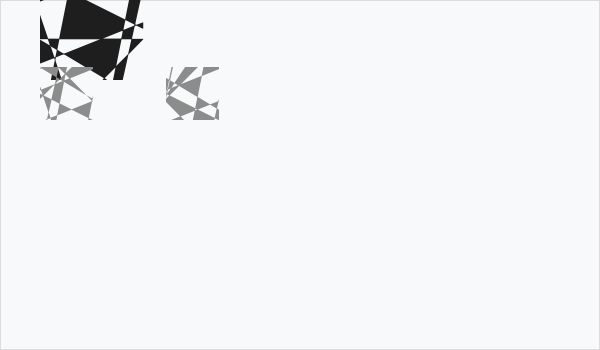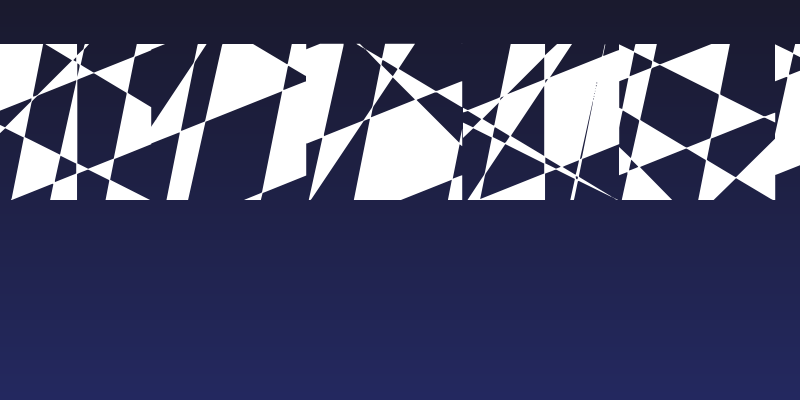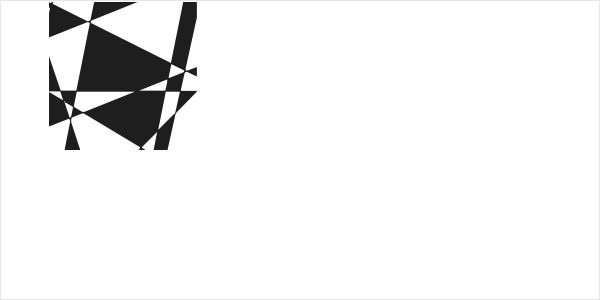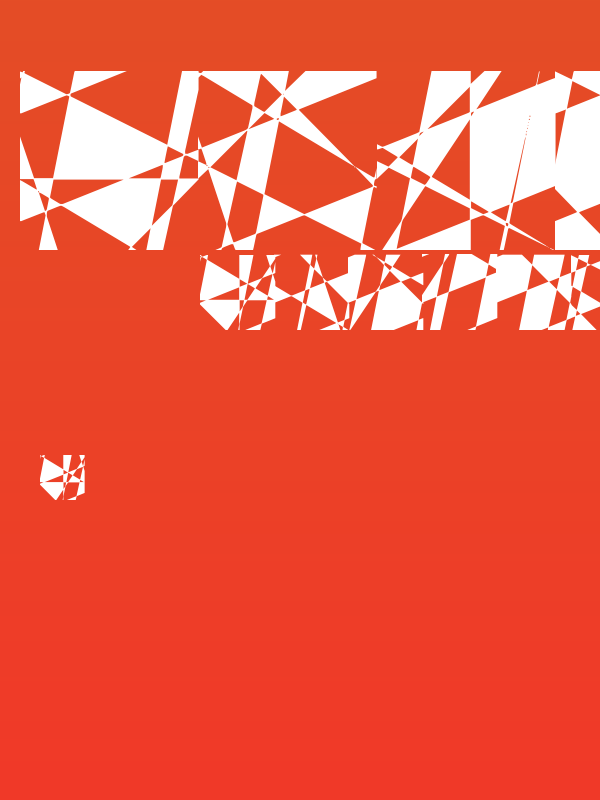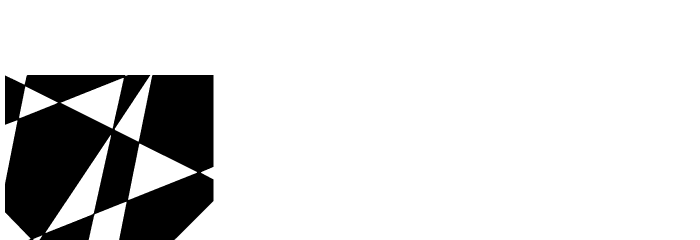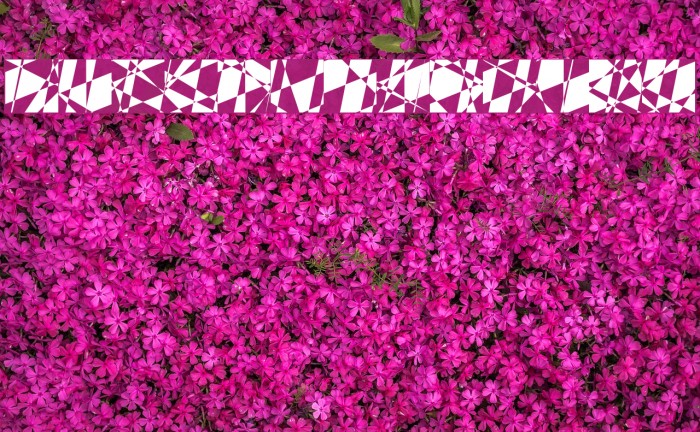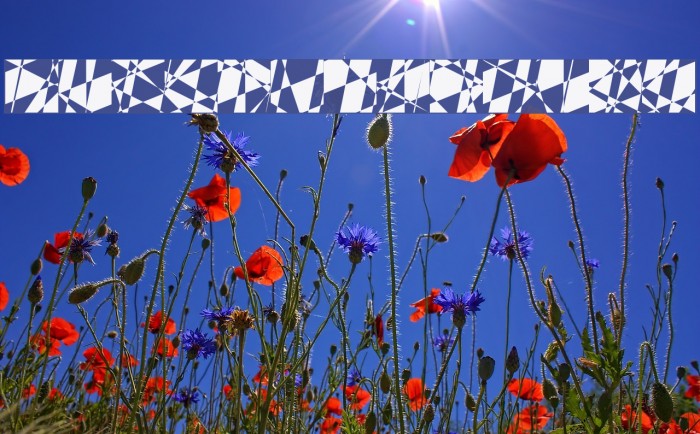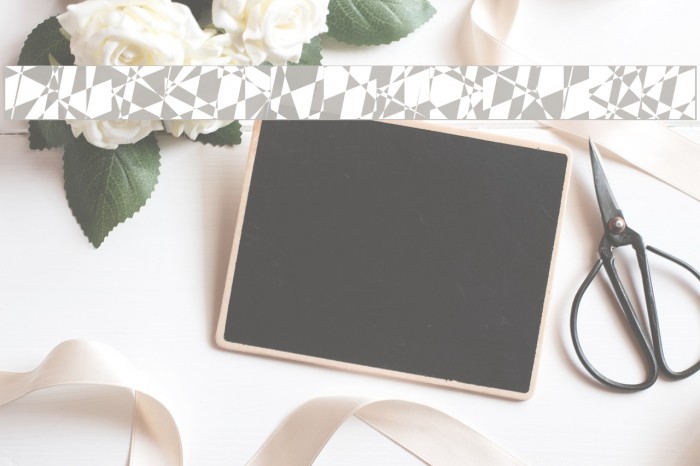
Schizophrenia2 Font
Schizophrenia2 Description
This font features a highly abstract and fragmented design, with each character composed of sharp, angular shapes that intersect and overlap. The overall appearance is chaotic and dynamic, creating a sense of movement and energy. The characters are bold and heavily stylized, making them difficult to read at a glance. The font's unique structure gives it a modern, avant-garde feel, suitable for artistic and experimental projects. The high contrast between the thick black shapes and the white spaces enhances its striking visual impact.
| Use Case | Logos, Posters, Artistic projects |
| Proposed Projects | Ideal for experimental art projects, avant-garde posters, or album covers where a bold, unconventional look is desired. |